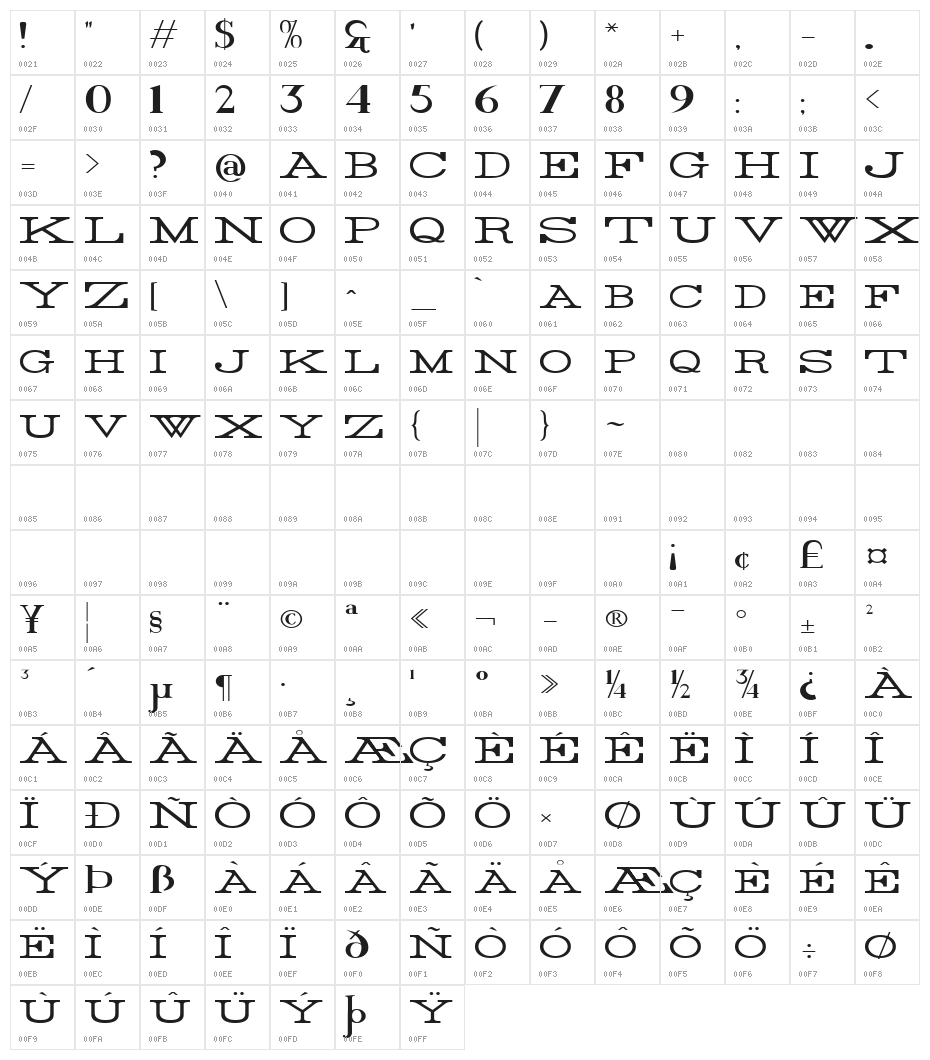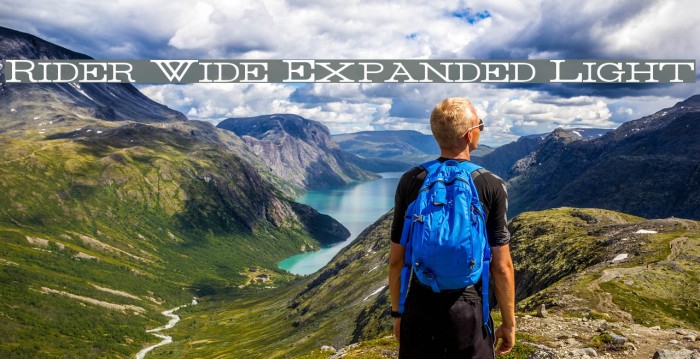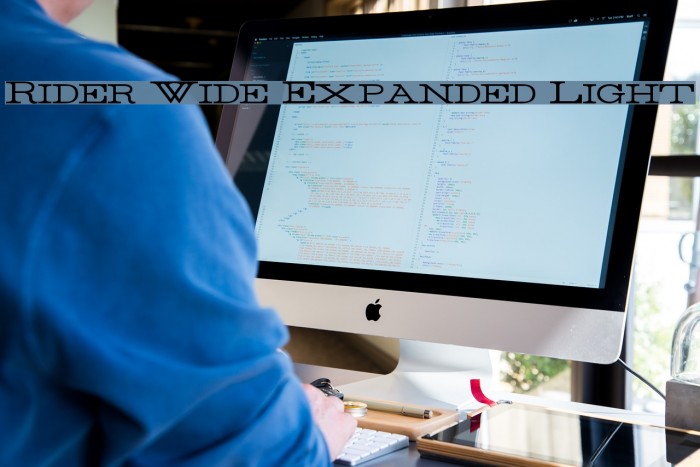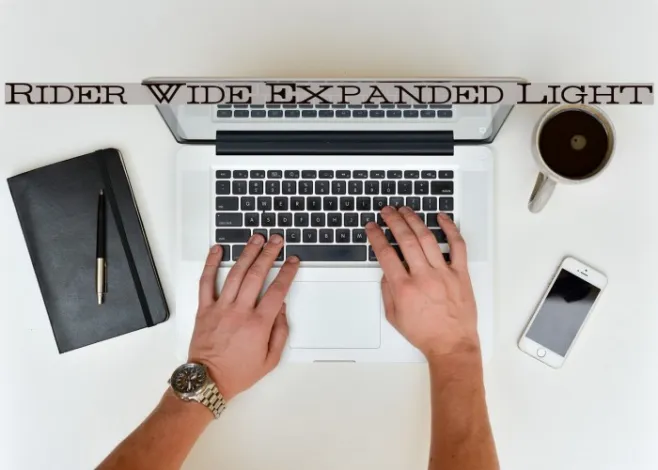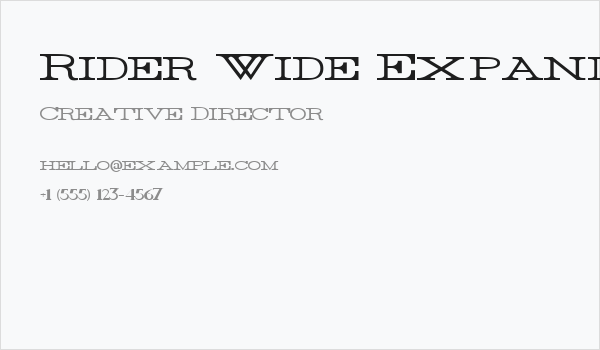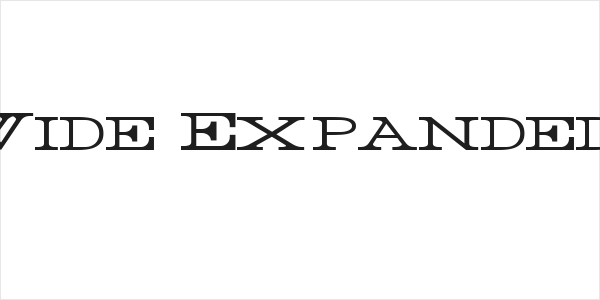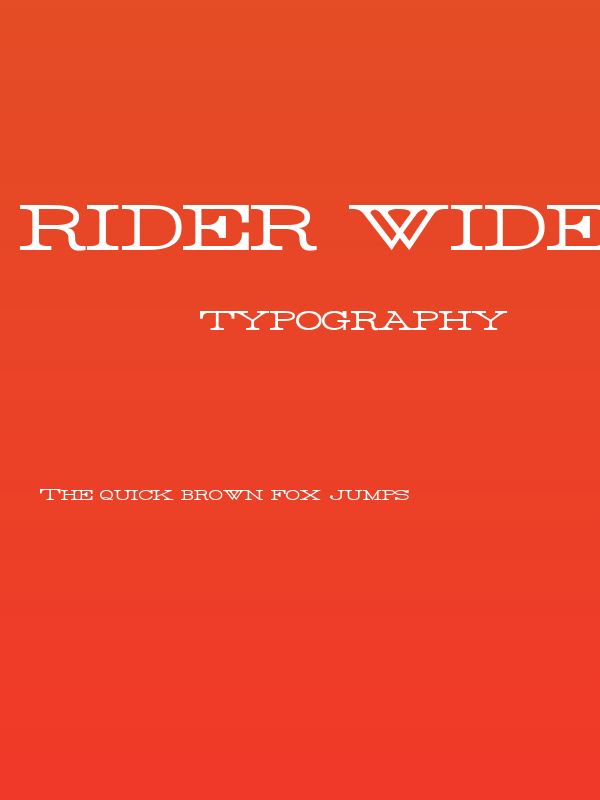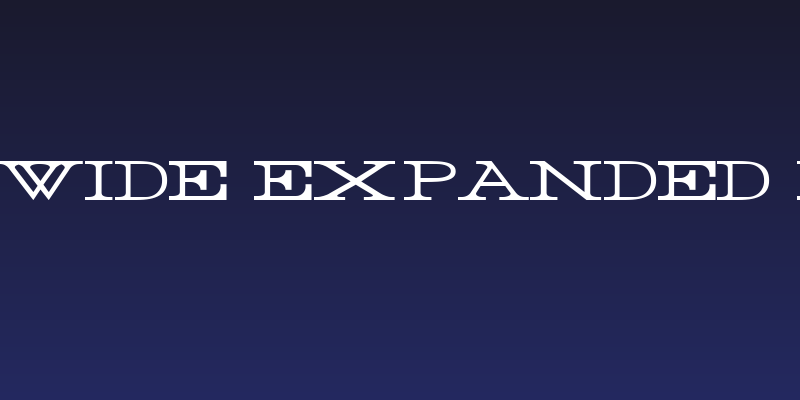
Rider Wide Expanded Light Font
Rider Wide Expanded Light Description
This font features a bold and expansive design, characterized by its wide letterforms and light stroke weight. The uppercase letters exhibit a strong presence with sharp serifs and a modern aesthetic. The numerals are distinct and well-proportioned, maintaining the font's overall boldness. Special characters are crafted with attention to detail, ensuring consistency across the set. The font's style is both contemporary and versatile, making it suitable for various design applications.
| Proposed Projects | Ideal for branding, headlines, posters, and editorial design where a strong and modern serif is desired. |